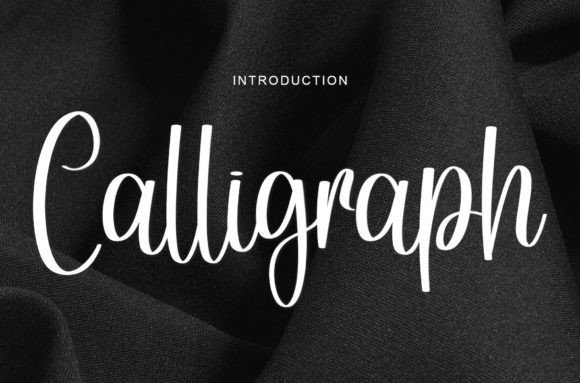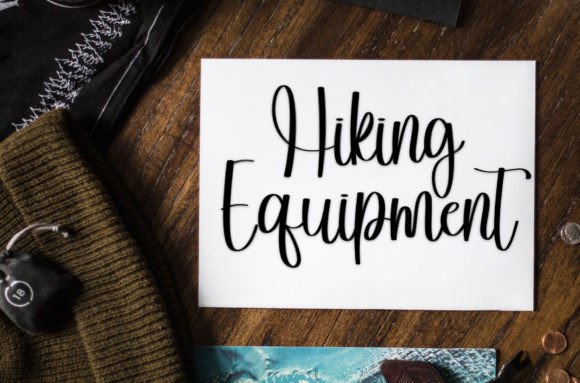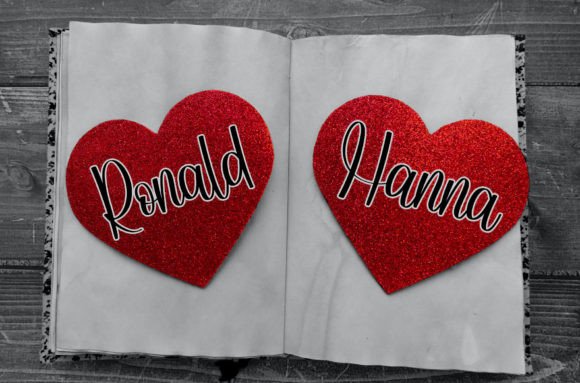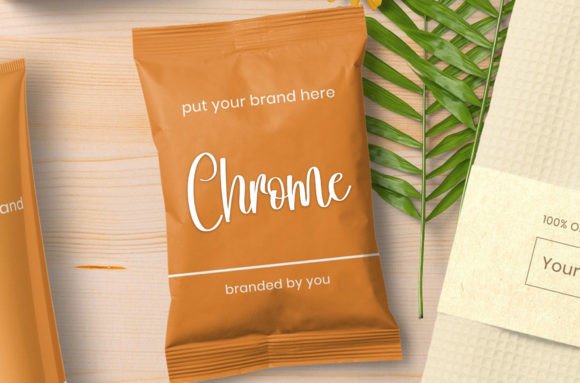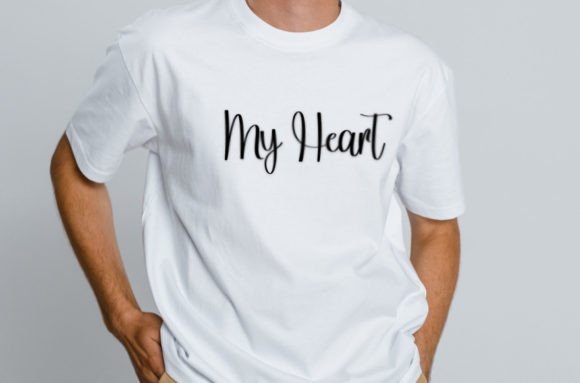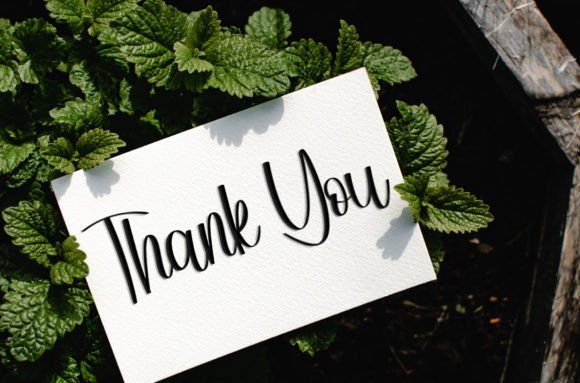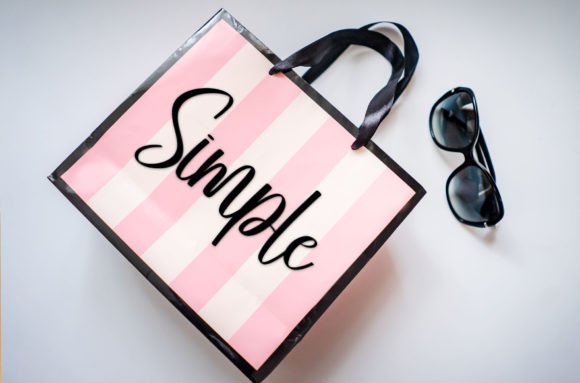
Calligraph
About Calligraph
Calligraph is an enchanting handwritten font. This versatile script font has a wide spectrum of applications ranging from greeting cards to headlines and is guaranteed to add a romantic feel to your next project.